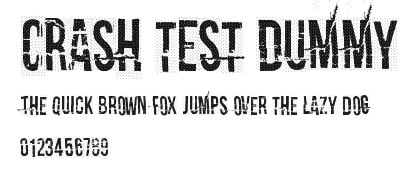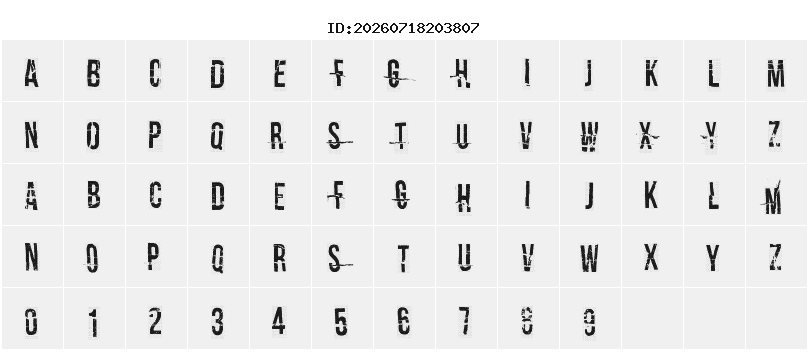
Crash test dummy Preview
• Font Name: Crash test dummy
• Full Font Name: Crash test dummy
• Version: Version 1.00 February 16, 2015, initial release
• Designer: junkohanhero
About Crash test dummy.ttf
Crash test dummy.ttf is a modern, elegant sans-serif font designed for ultimate readability and visual harmony. Perfect for branding, headlines, web design, and print materials.